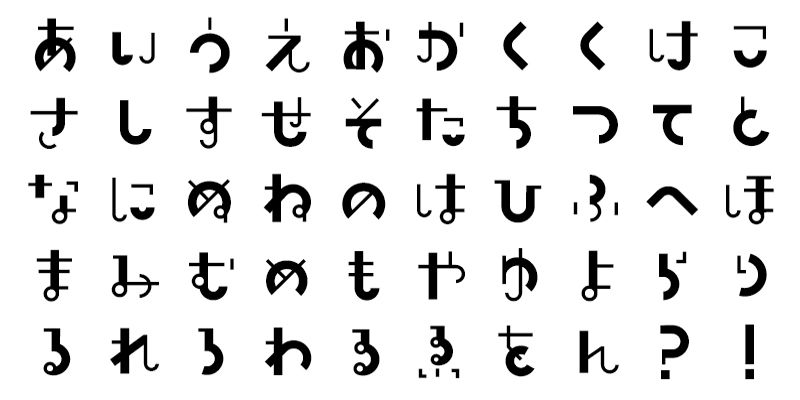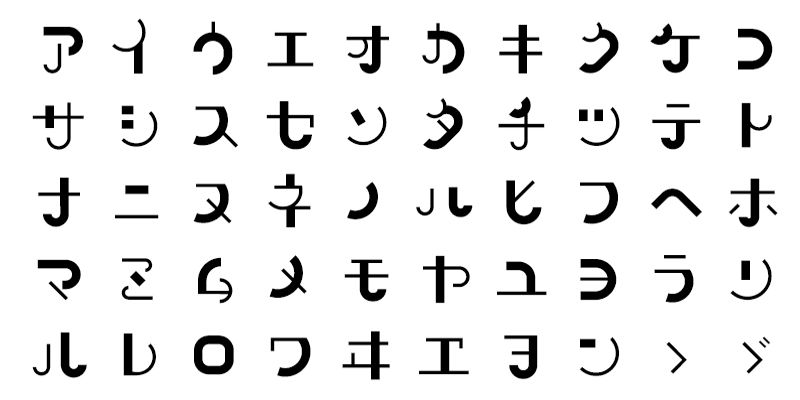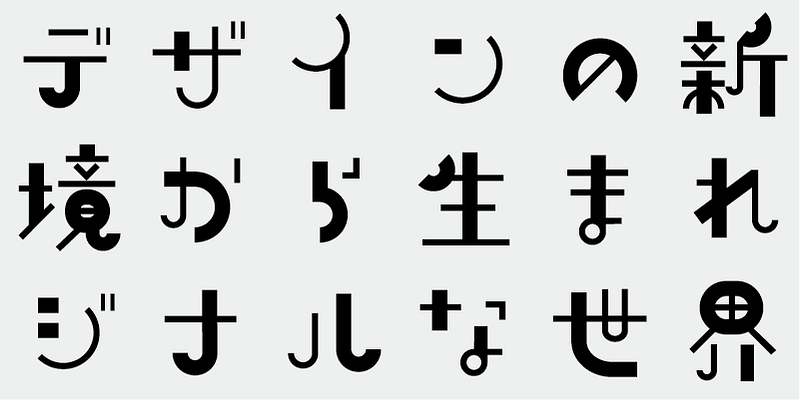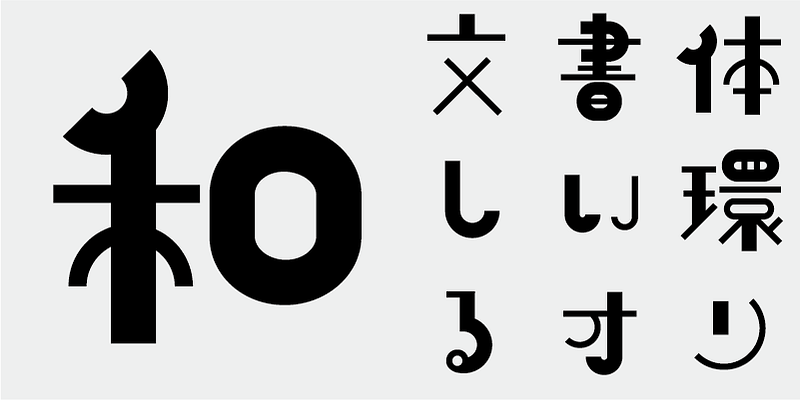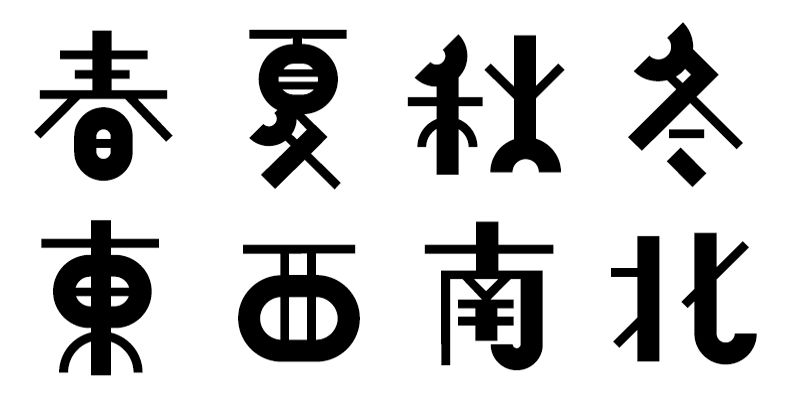
Like bubbles in bubble-wrap, small mechanical pieces, parts for plastic models, or a line of small beans, this typeface was designed imagining an orderly arrangement of small items.